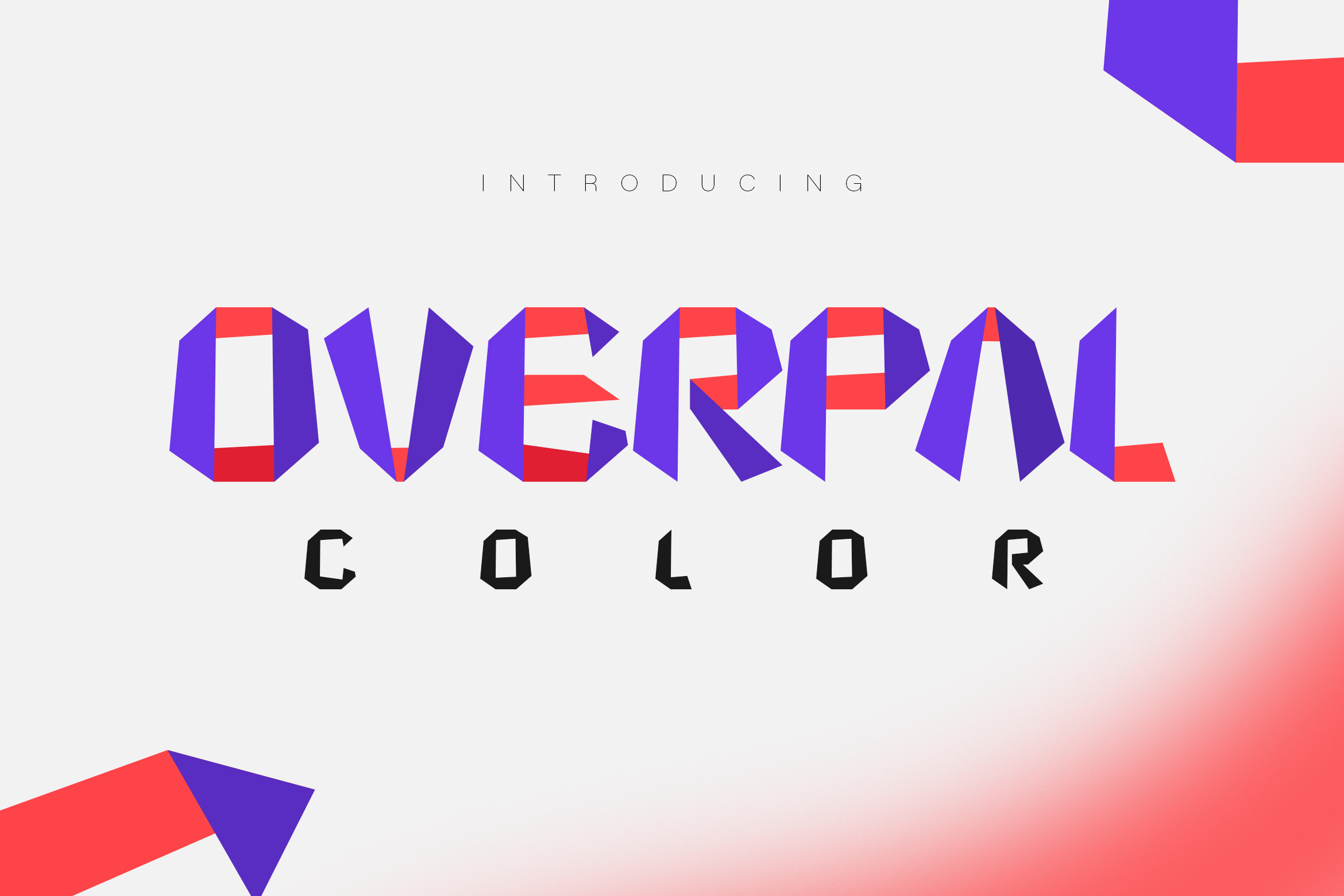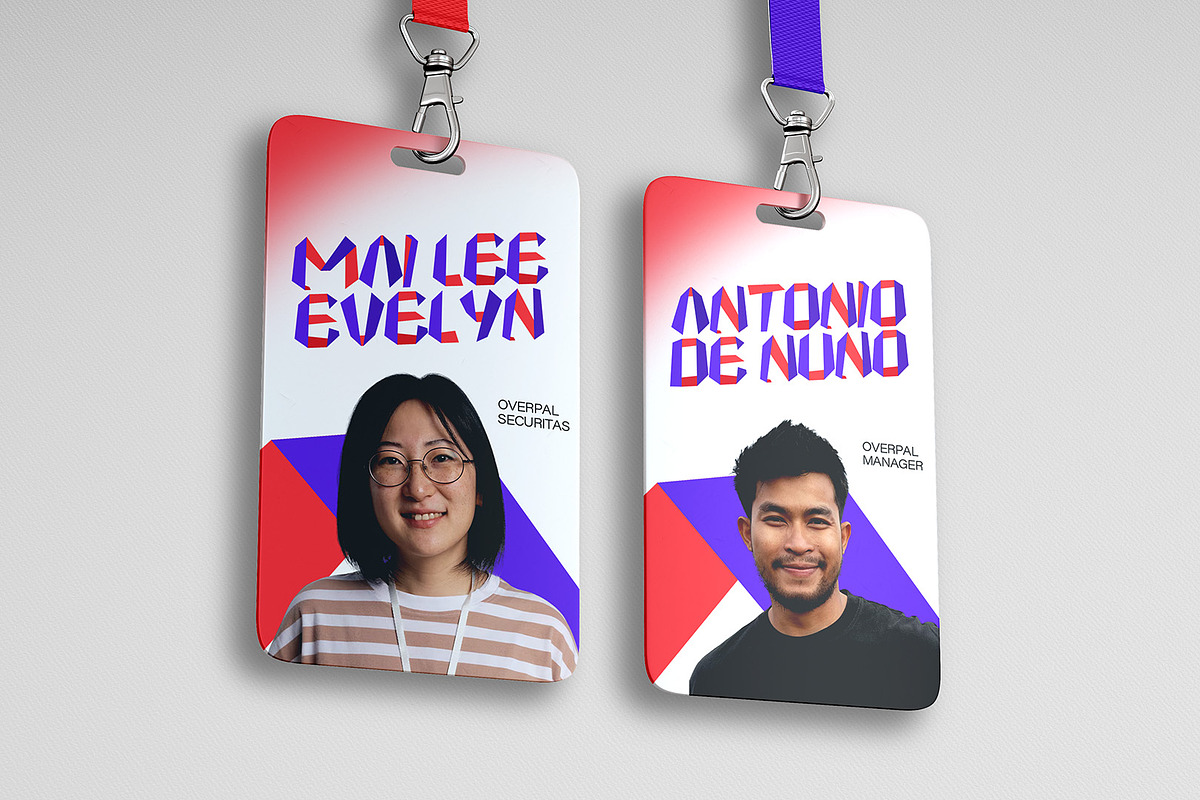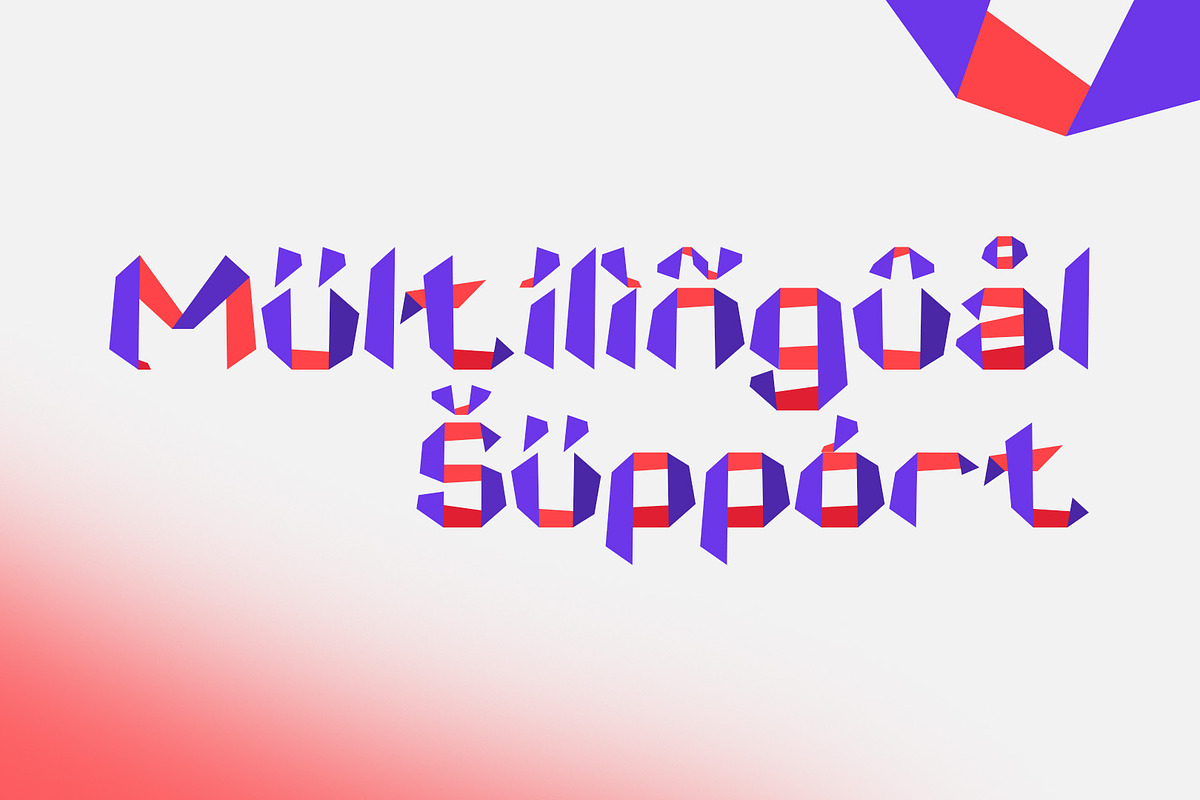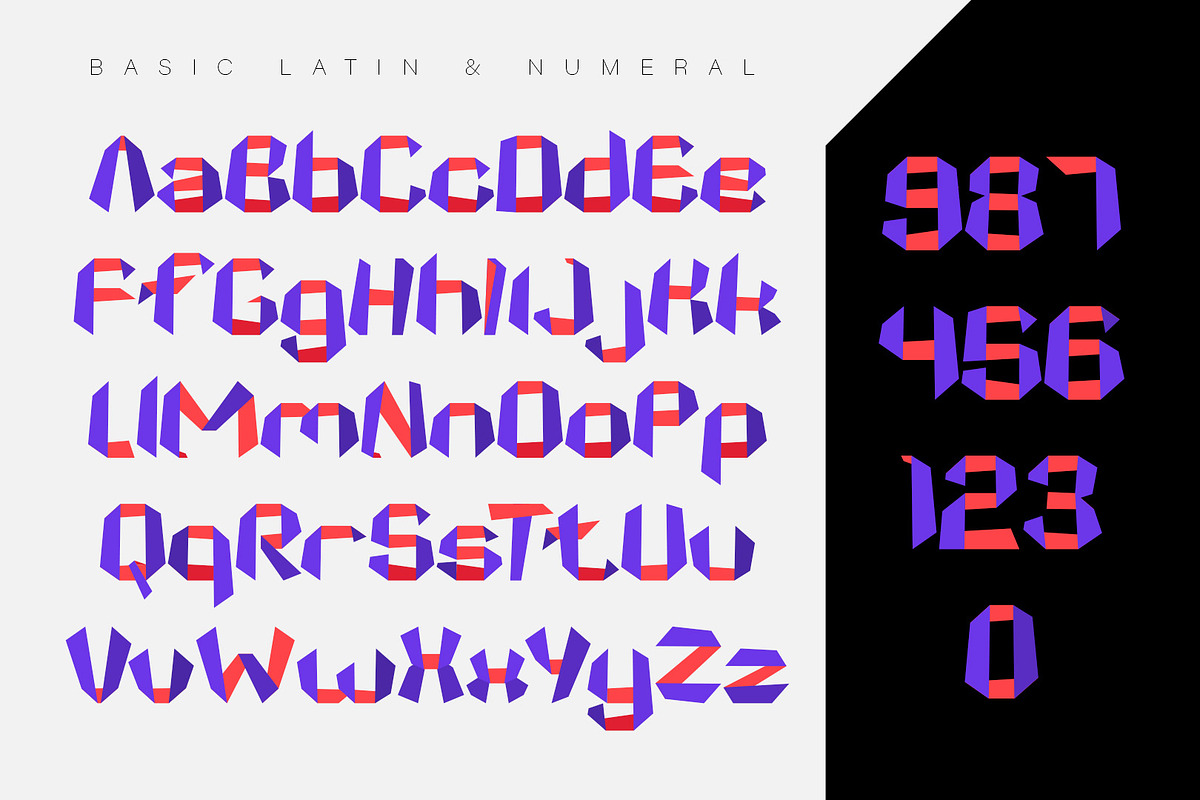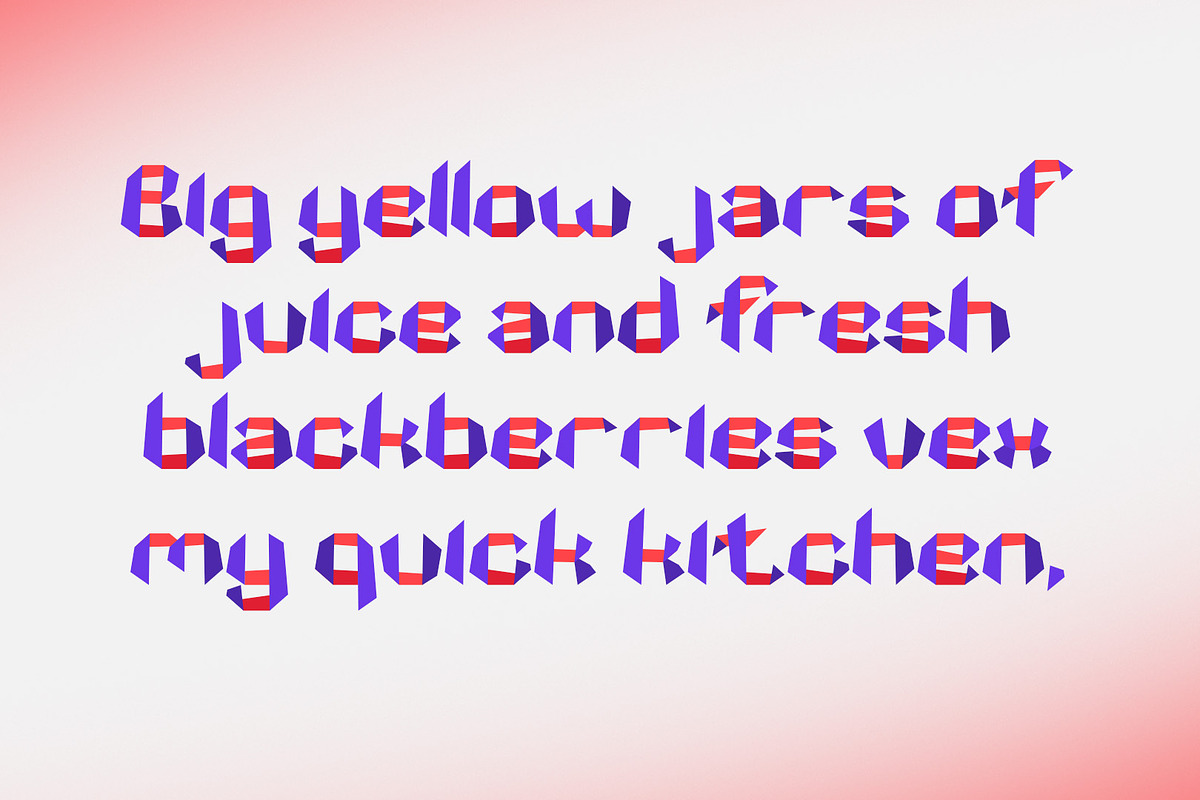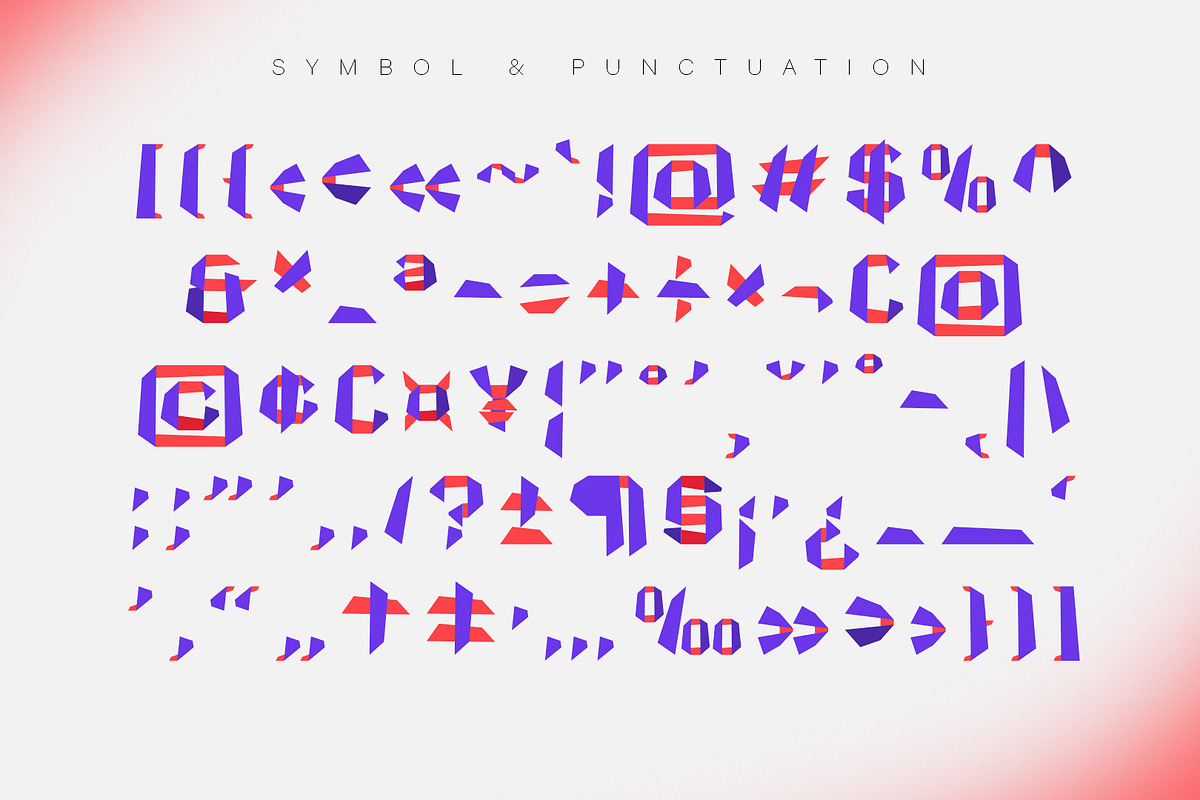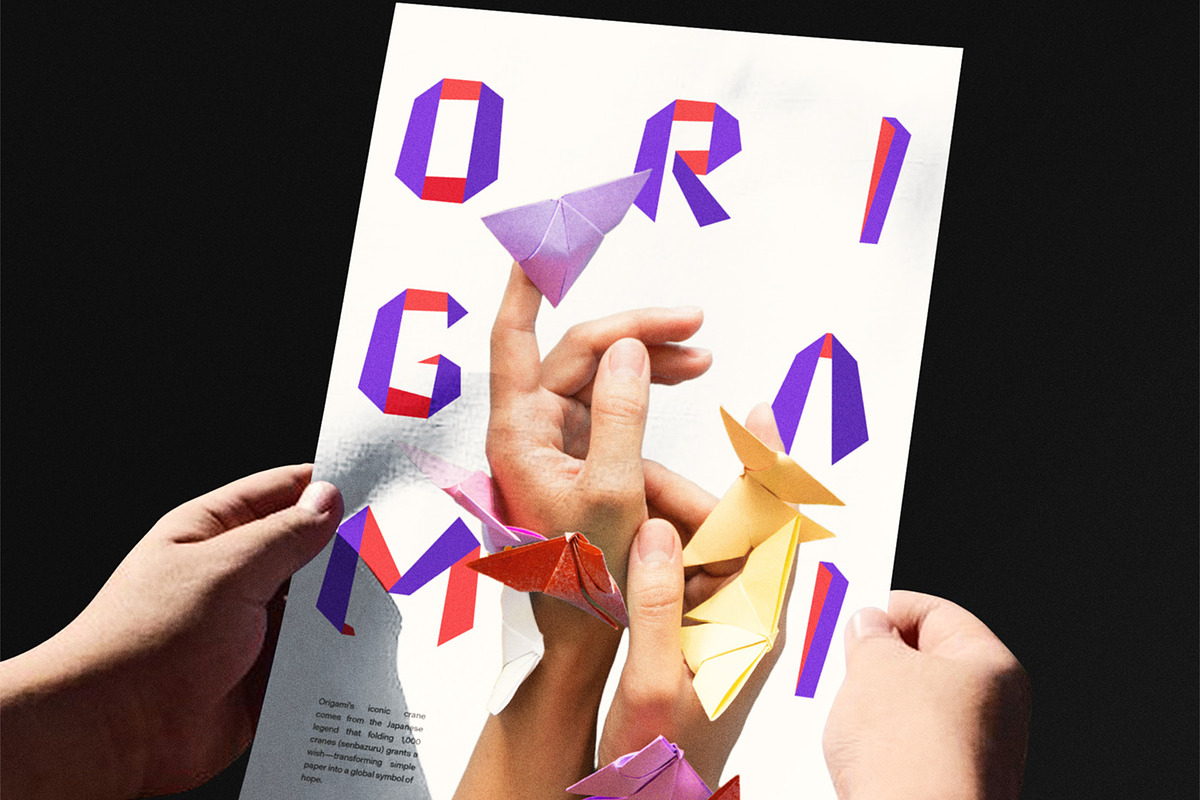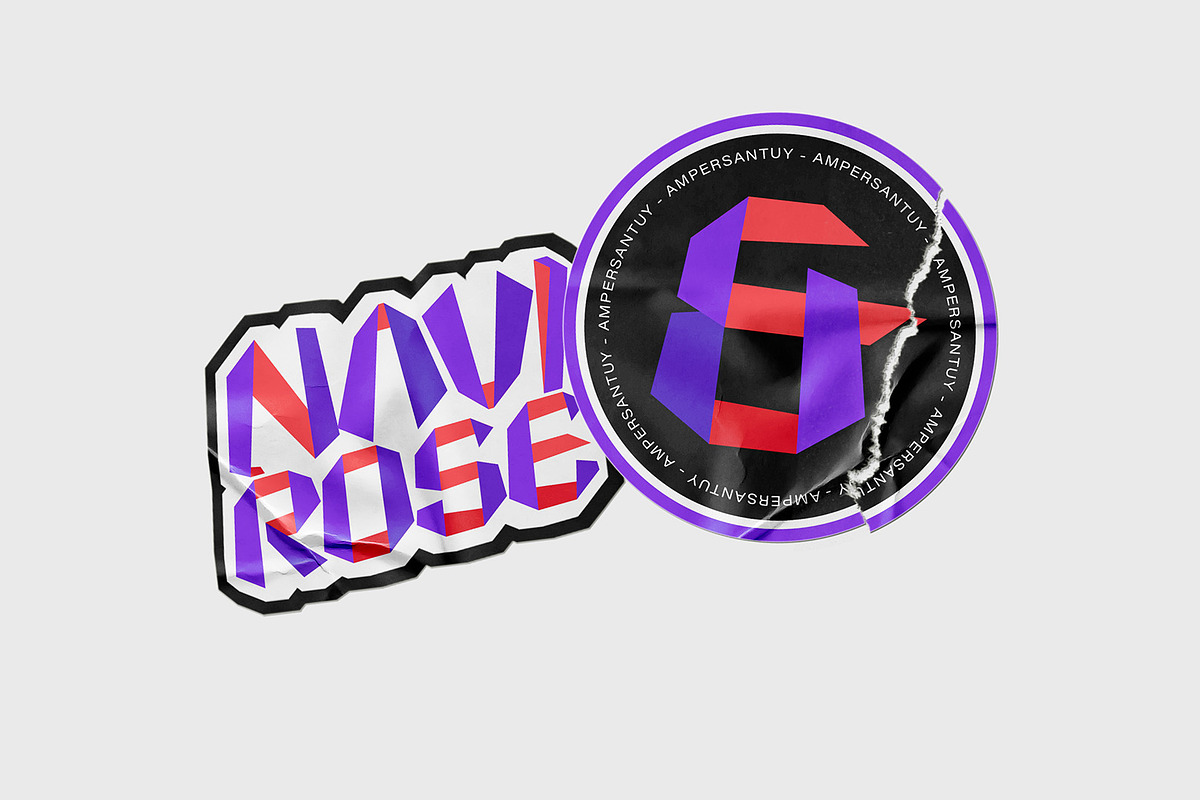
Overpal Color - Color SVG Font
Overpal Color is a striking SVG color font designed to captivate with its bold, angular glyphs crafted in vibrant purple and red tones. Inspired by origami techniques, it features a unique folded aesthetic that adds depth and modernity. Ideal for eye-catching headlines, innovative logos, and artistic posters, this font brings a dynamic flair to digital and print projects, supporting a full Latin alphabet, numerals, symbols, and punctuation for versatile creative expression.
- Standard letter A-Z and a-z
- Numeral, Symbol, and Punctuations